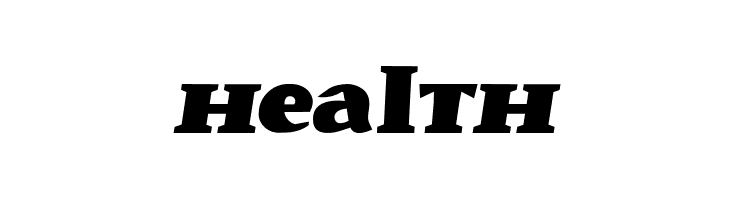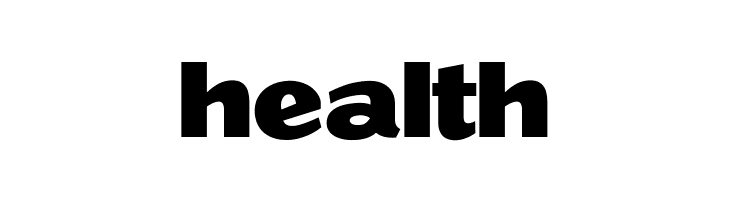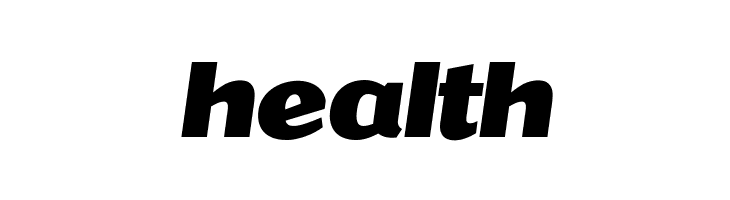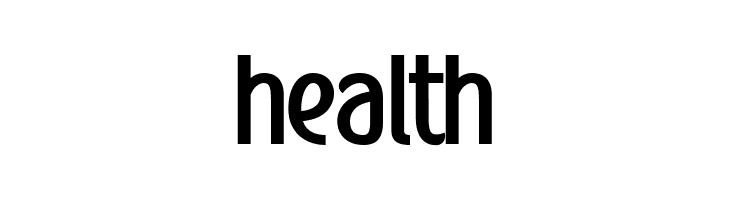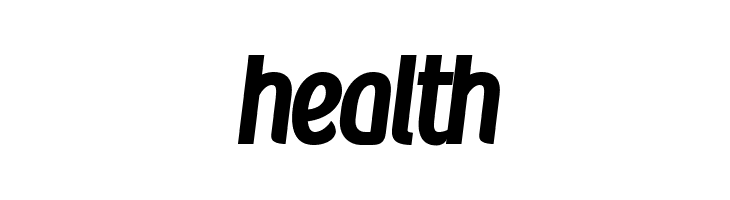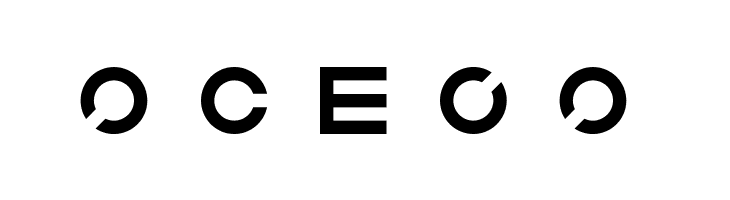
A bold, dynamic italic font with strong, consistent strokes and a sense of movement.
A modern, rounded font with smooth curves and balanced spacing.
A bold, modern sans-serif font with geometric precision and clarity.
A bold serif font with sharp serifs and high contrast, ideal for impactful designs.
A bold, modern font with strong, thick strokes and a geometric influence.
A bold, italicized font with strong, dynamic strokes.
A bold, modern sans-serif font with smooth, rounded edges and consistent character spacing.
A bold, italic font with a modern and dynamic style.
A bold, italic font with a dynamic and modern style.
A bold, geometric font with high legibility and structured design.